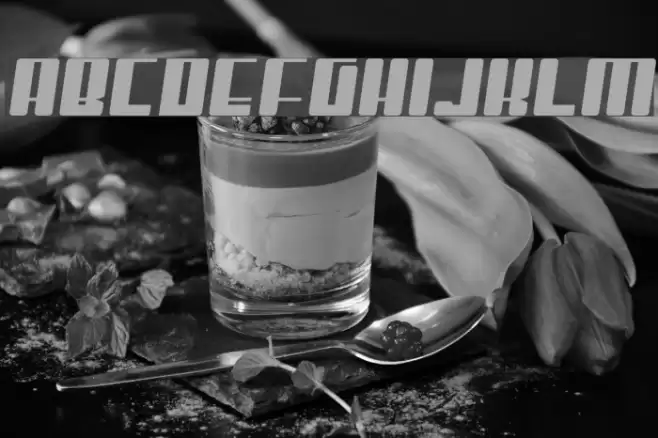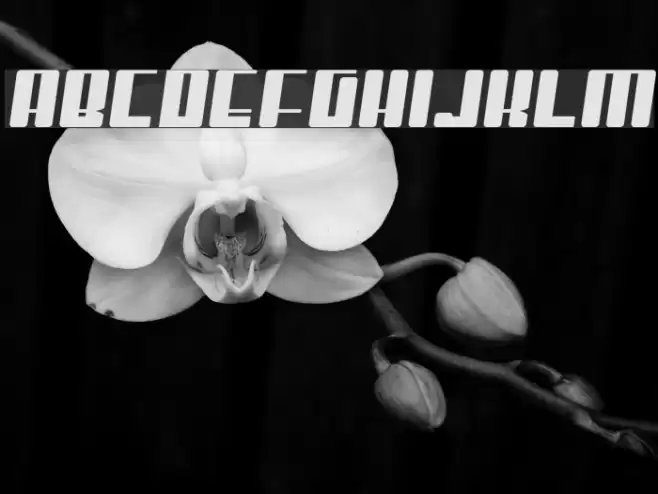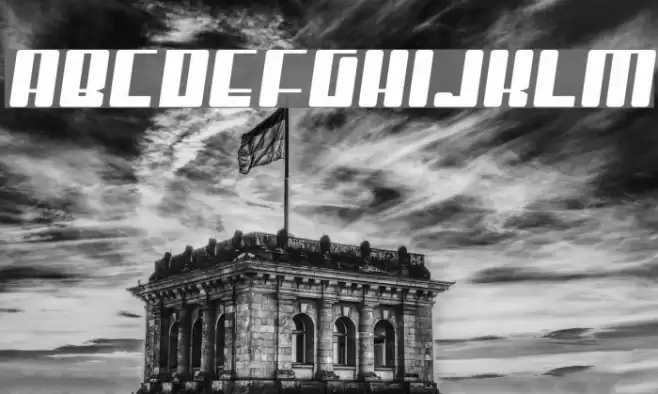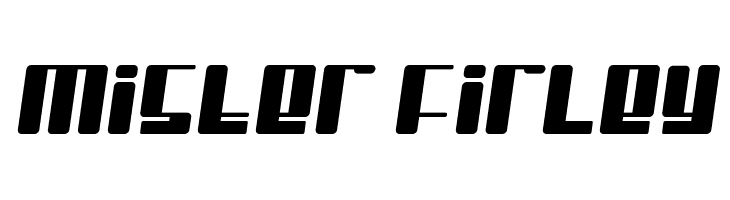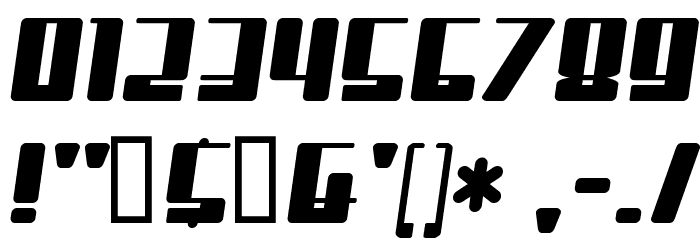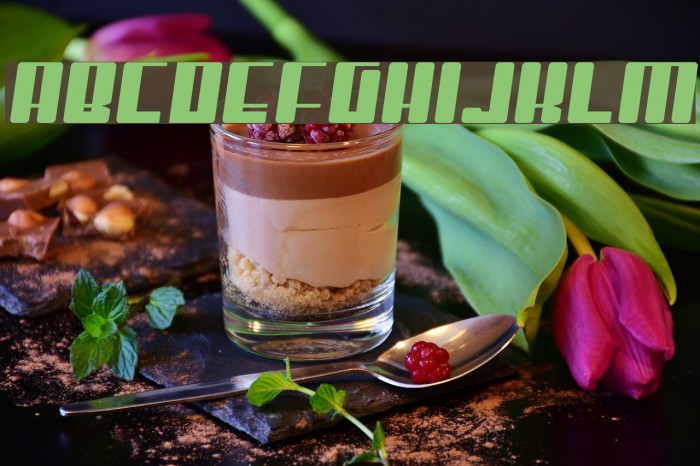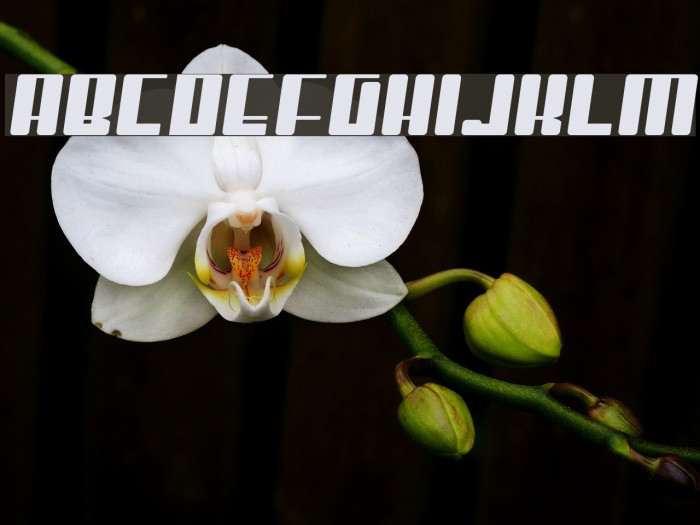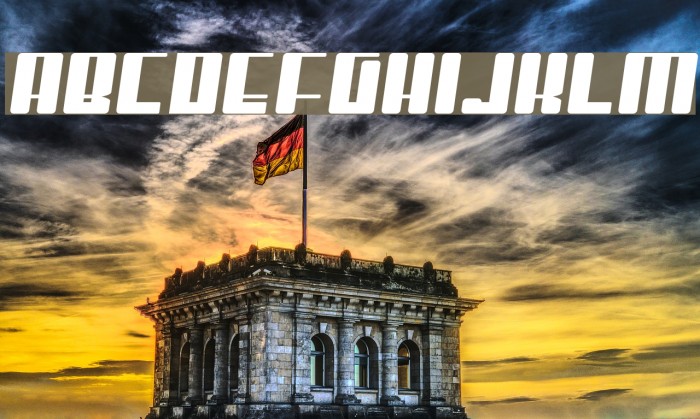
Mister Firley Font
Mister Firley Description
This font features a bold and dynamic design, characterized by its thick, angular strokes and geometric shapes. The uppercase letters are particularly striking, with a strong presence and a slightly condensed form that gives them a modern, futuristic appearance. The lowercase letters maintain the same boldness, offering a cohesive look across the alphabet. Numbers and special characters are equally bold, ensuring consistency throughout. The font's style is reminiscent of retro-futuristic aesthetics, making it ideal for projects that require a strong visual impact.
A bold, angular font with a modern, retro-futuristic style from Script fonts.
- Overall Style: Modern, Retro-Futuristic